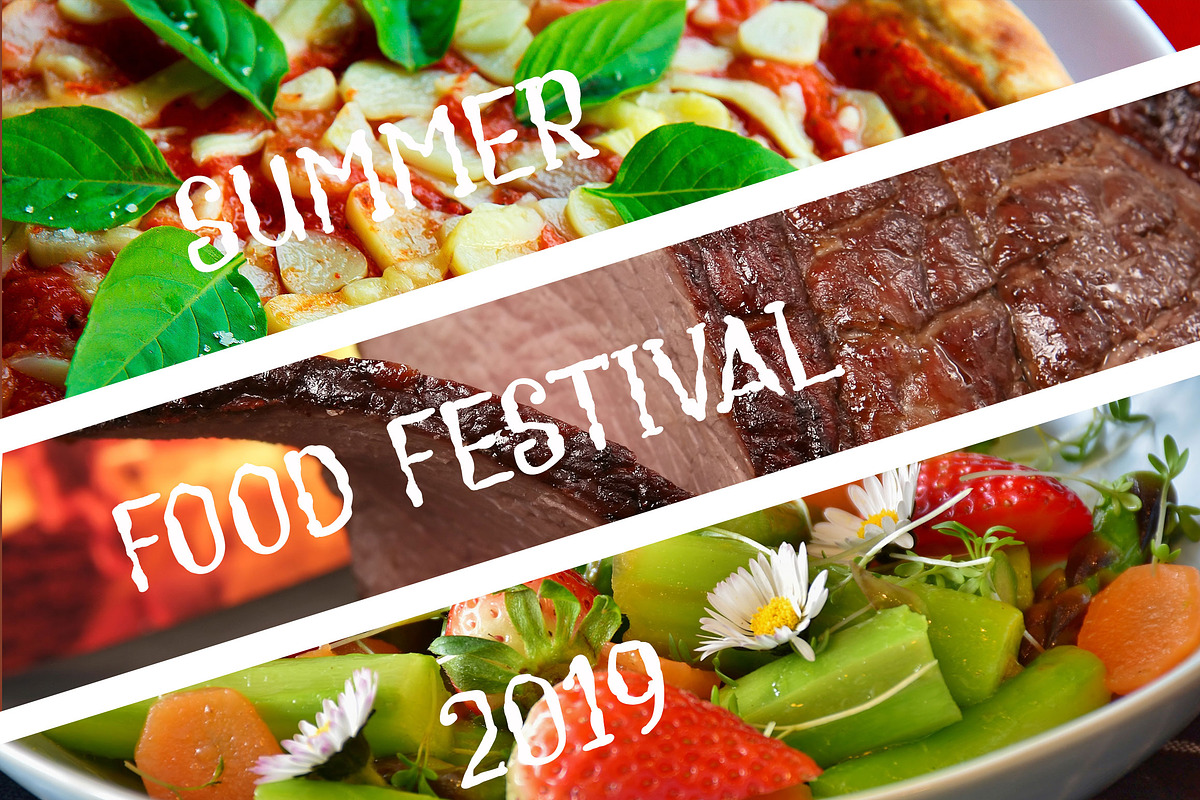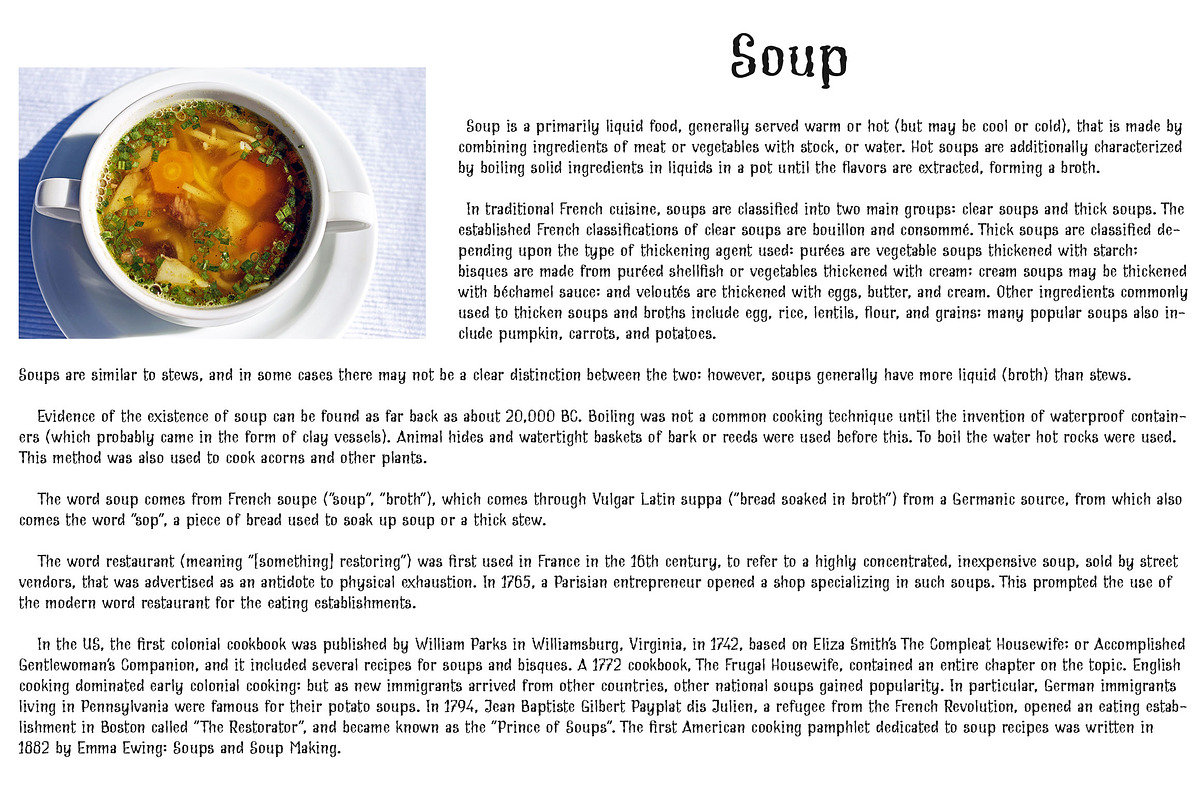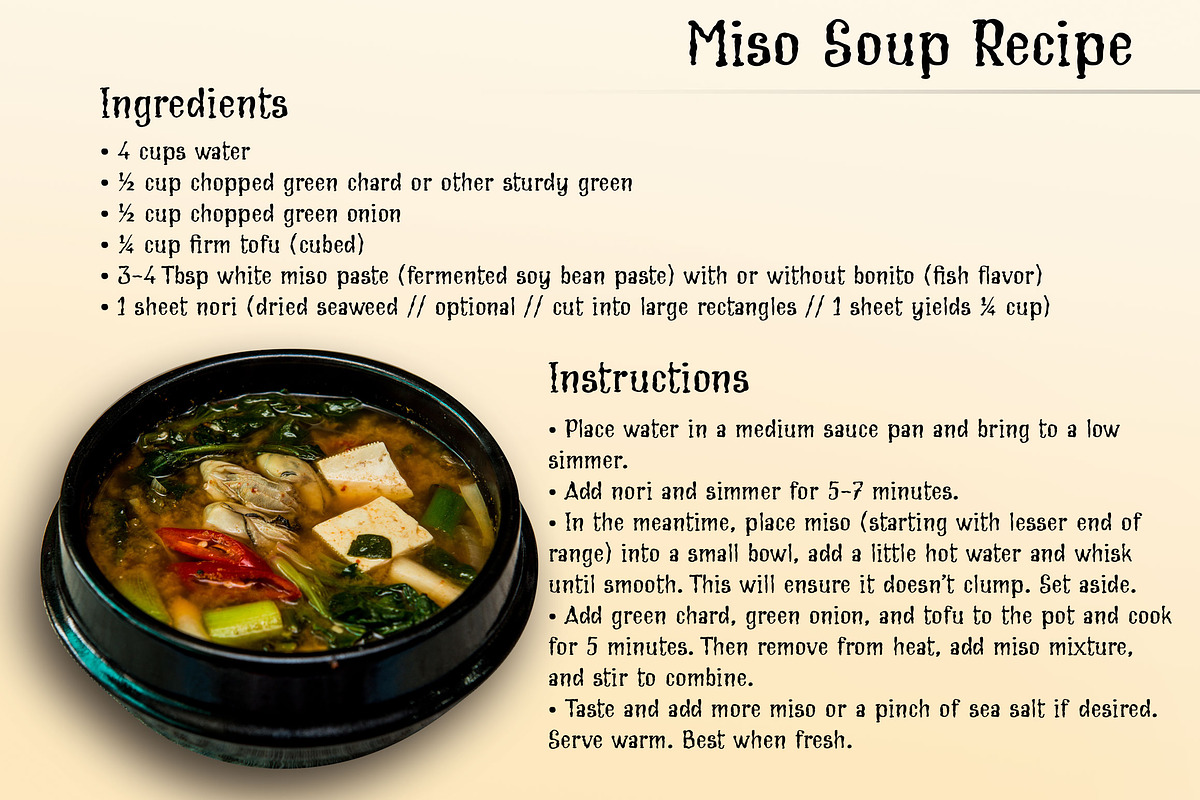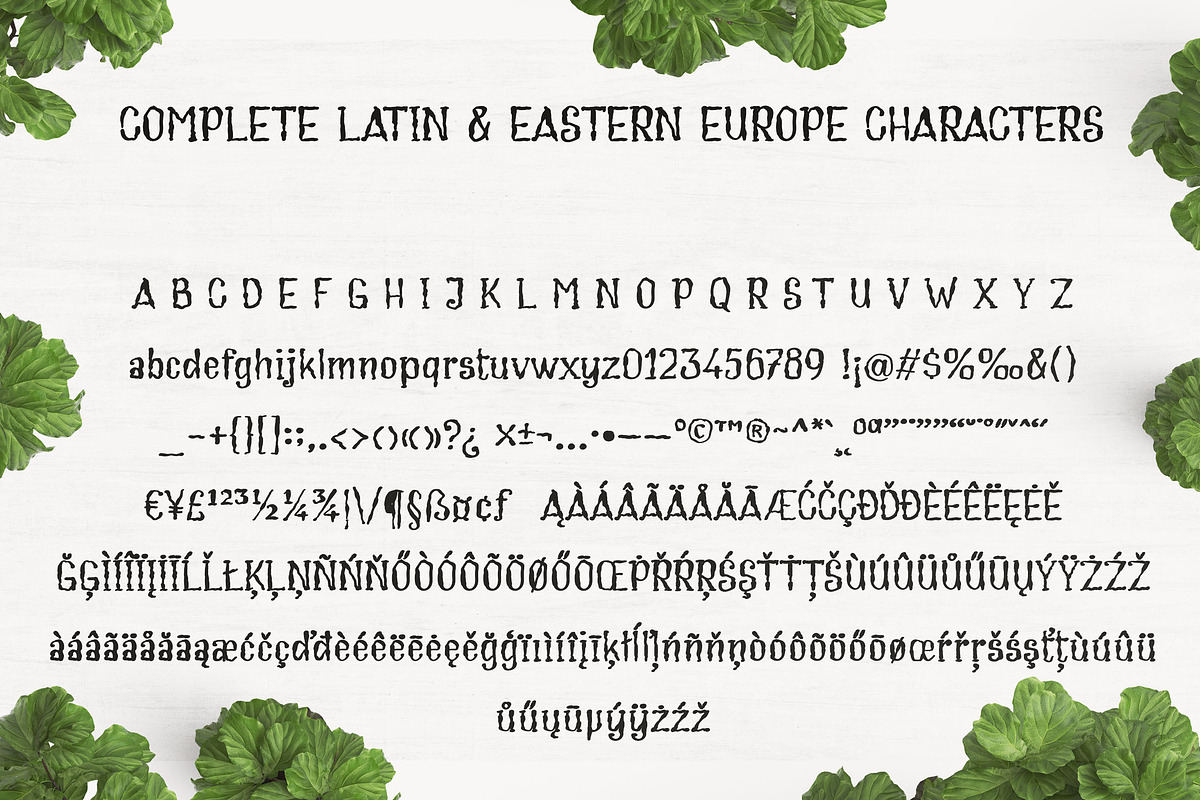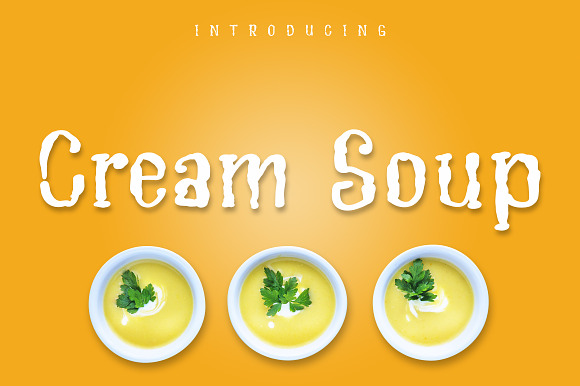
Cream Soup | Sauce Made Font
Introducing a new cool cream made style font. This font have well kerning. This font will nice for logo, title, subtitle,T-shirt, Mug, flyer, book, magazine, etc.
Have 308 glyphs, supported to all Latin and Eastern Europe characters.
Fraction features for 1/2, 1/3, 1/4, 2/3, 3/4
- Have 308 glyphs, supported to all Latin and Eastern Europe characters.
- Good kerning.
- Good composition.
- Good balance.
- Fraction features for 1/2, 1/3, 1/4, 2/3, 3/4